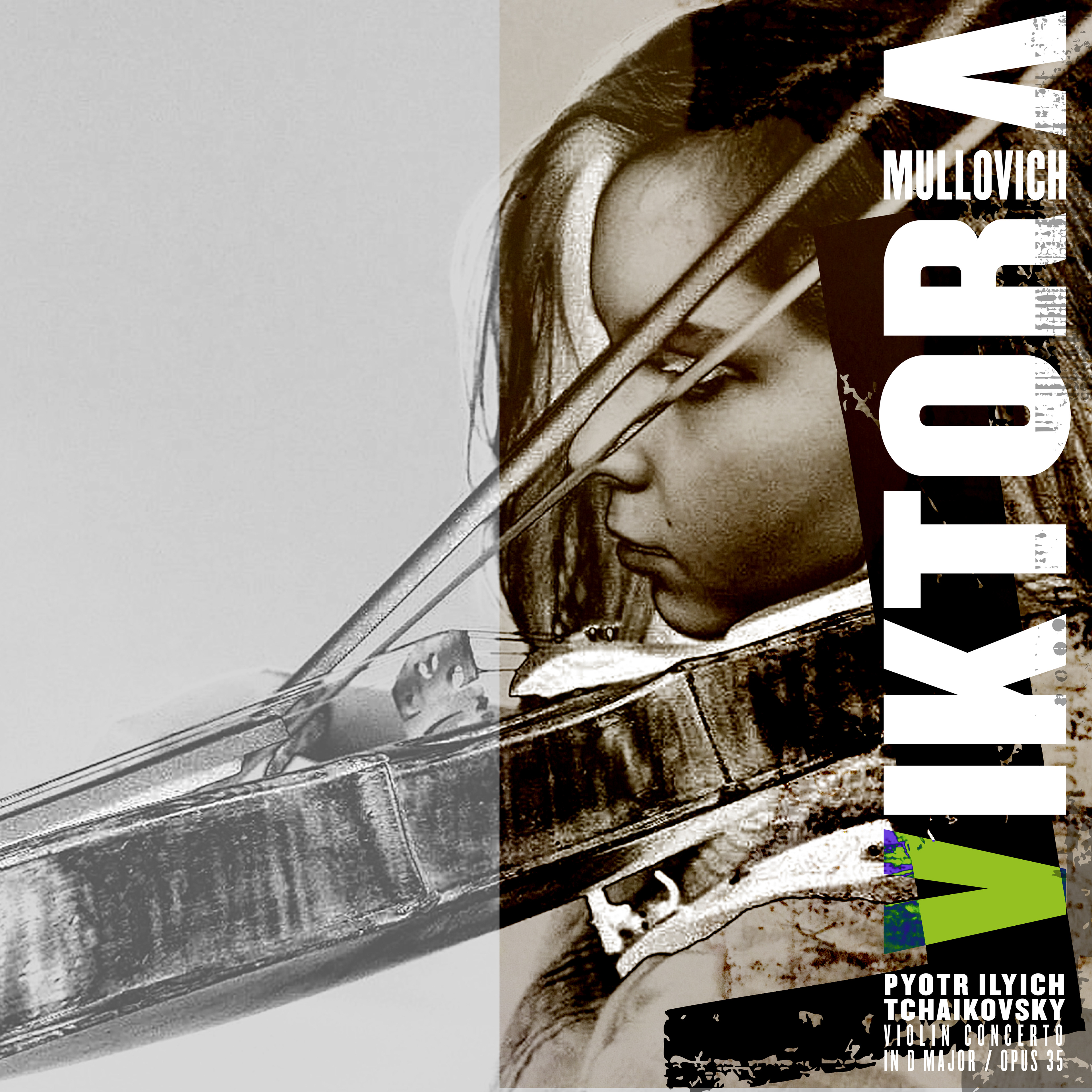
A section of work dedicated to the idea of applying ideas that have been produced but have no particular home or context. For example a pixel modular font was created and this was married with archive content to form a narrative // This current collection of ideas have been mixed into a vinyl sleeve artwork aesthetic.